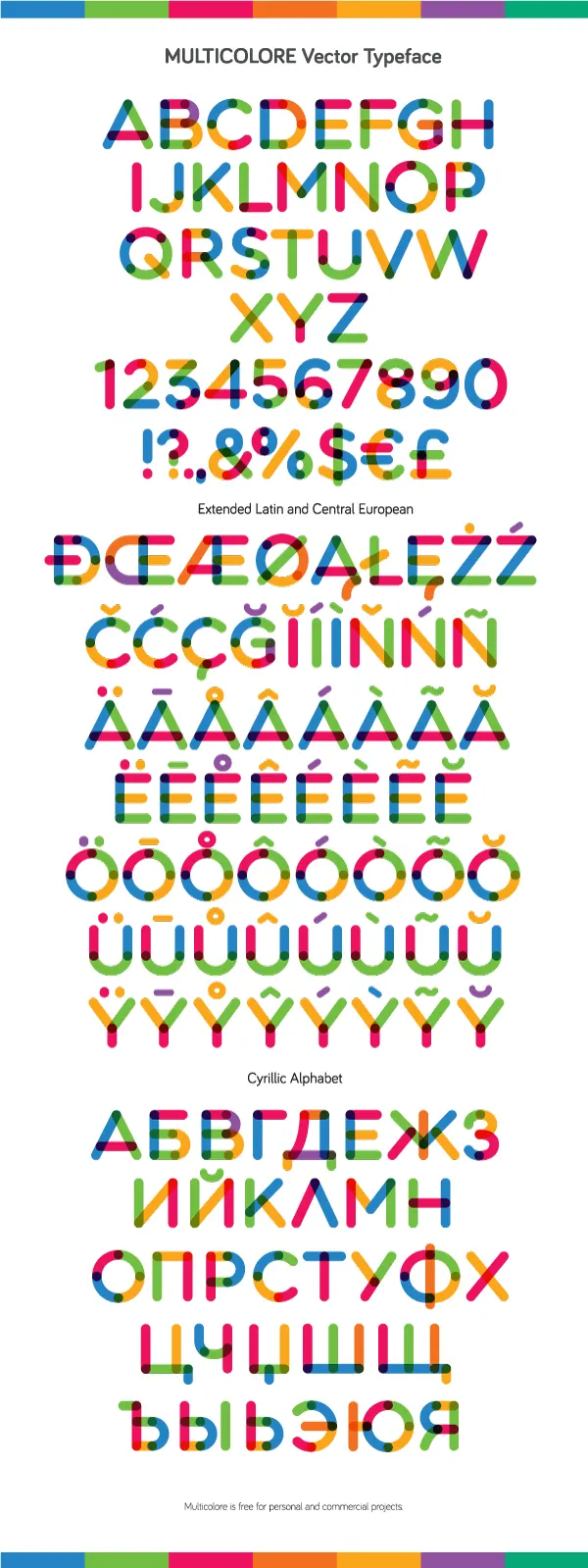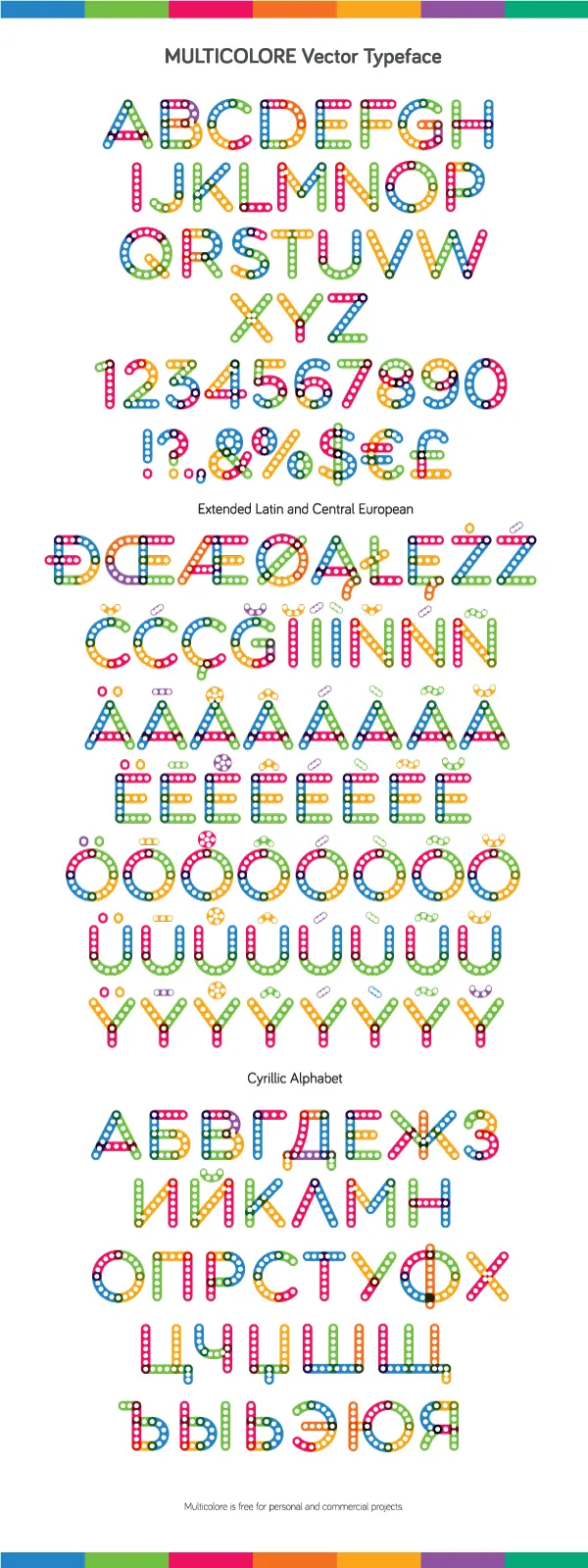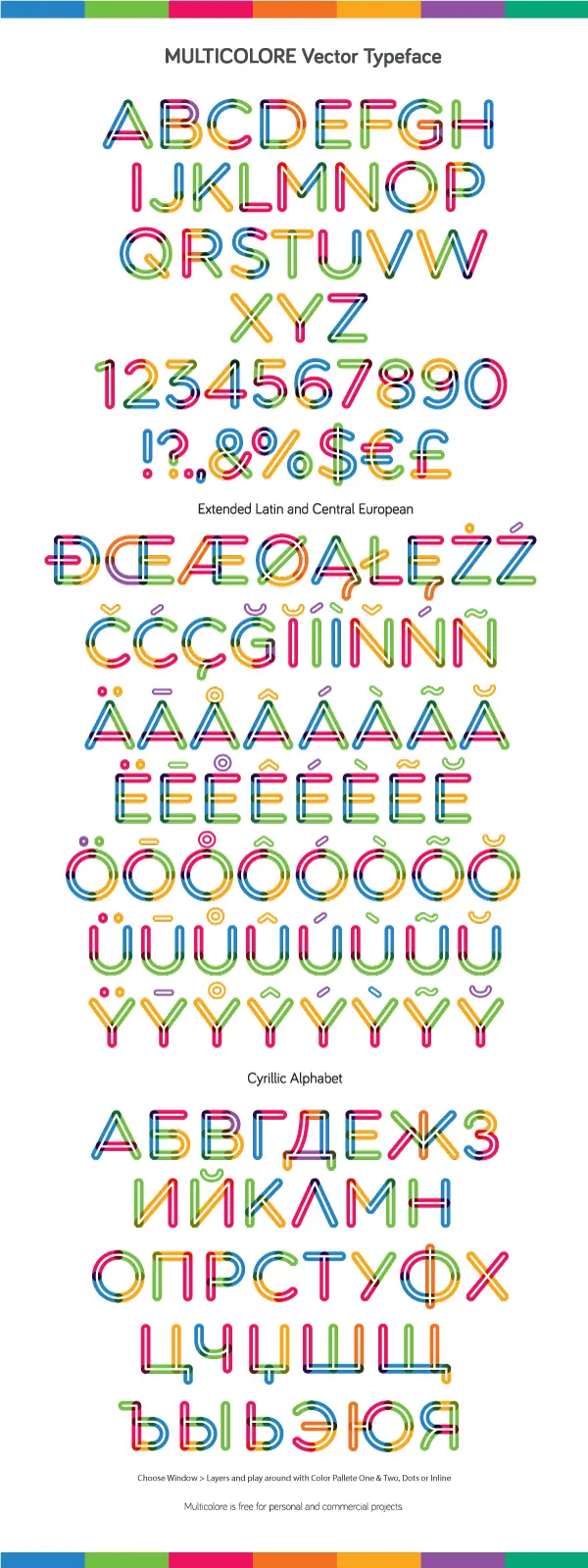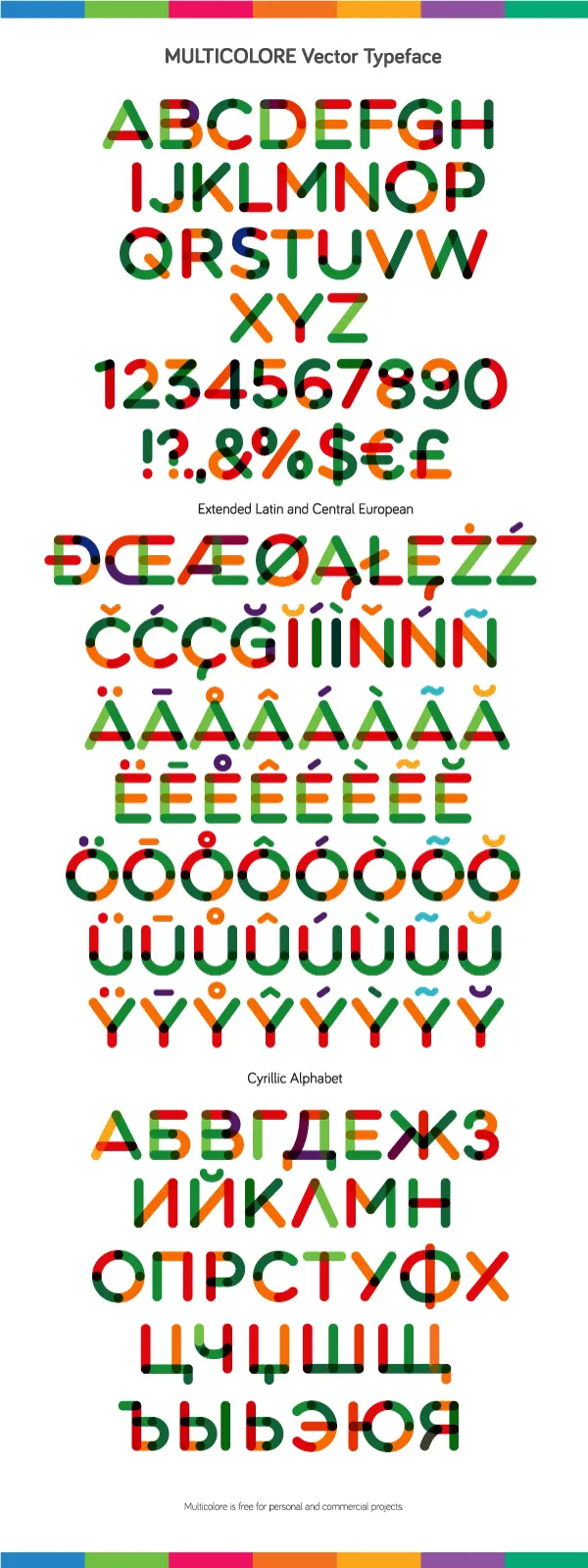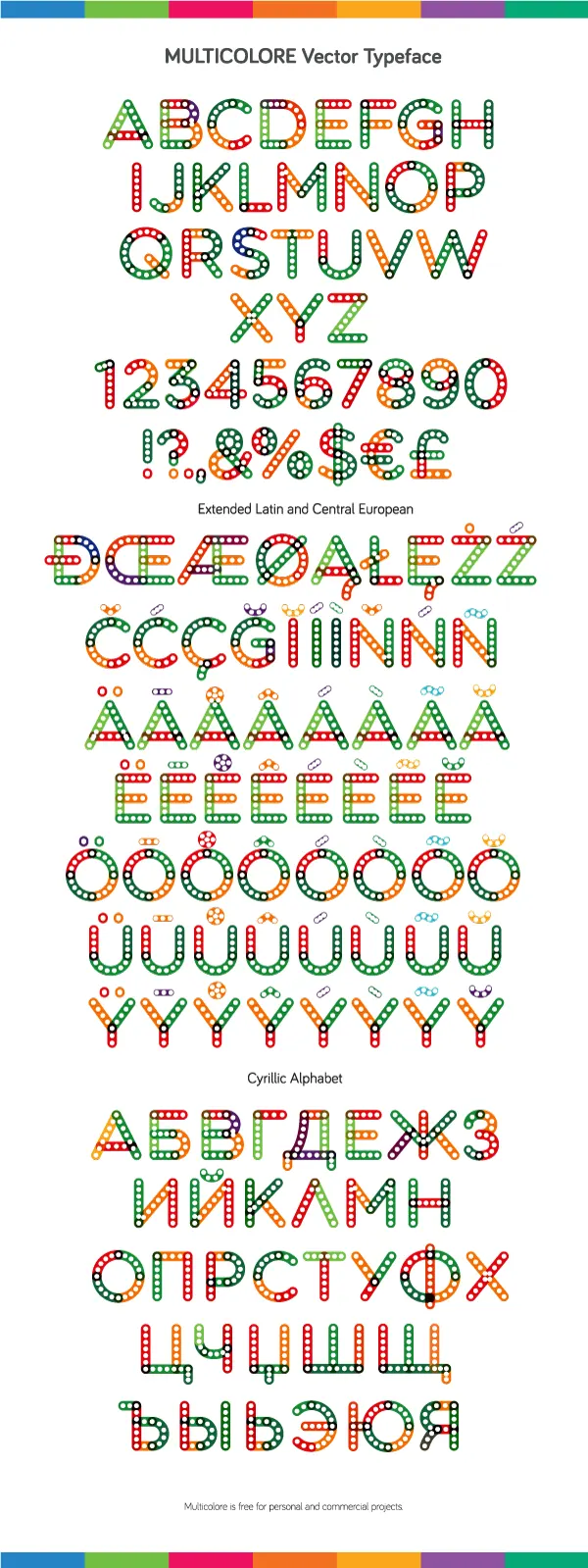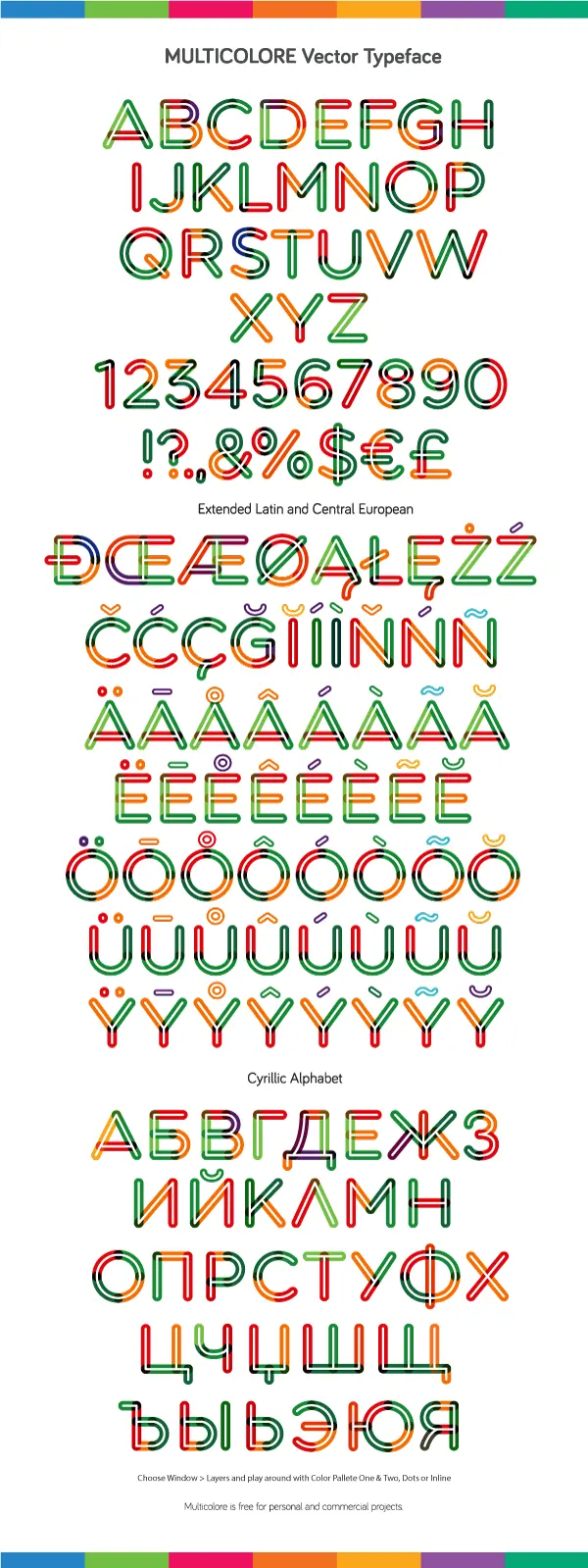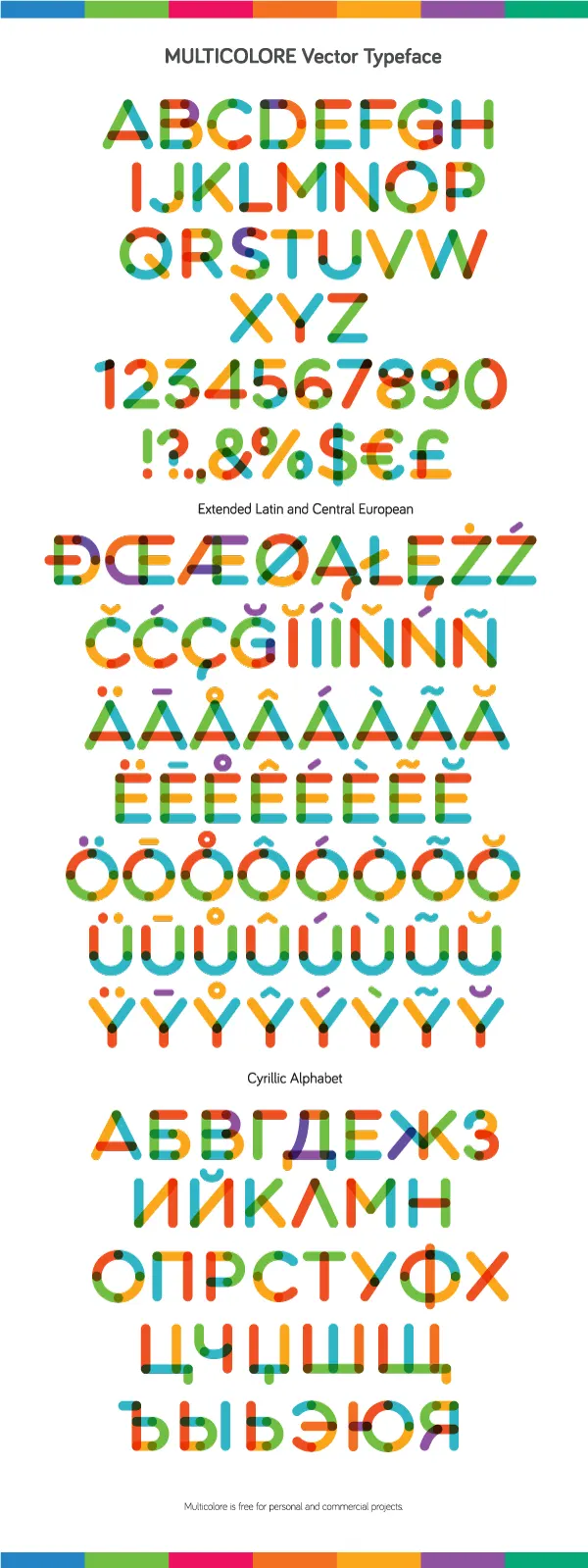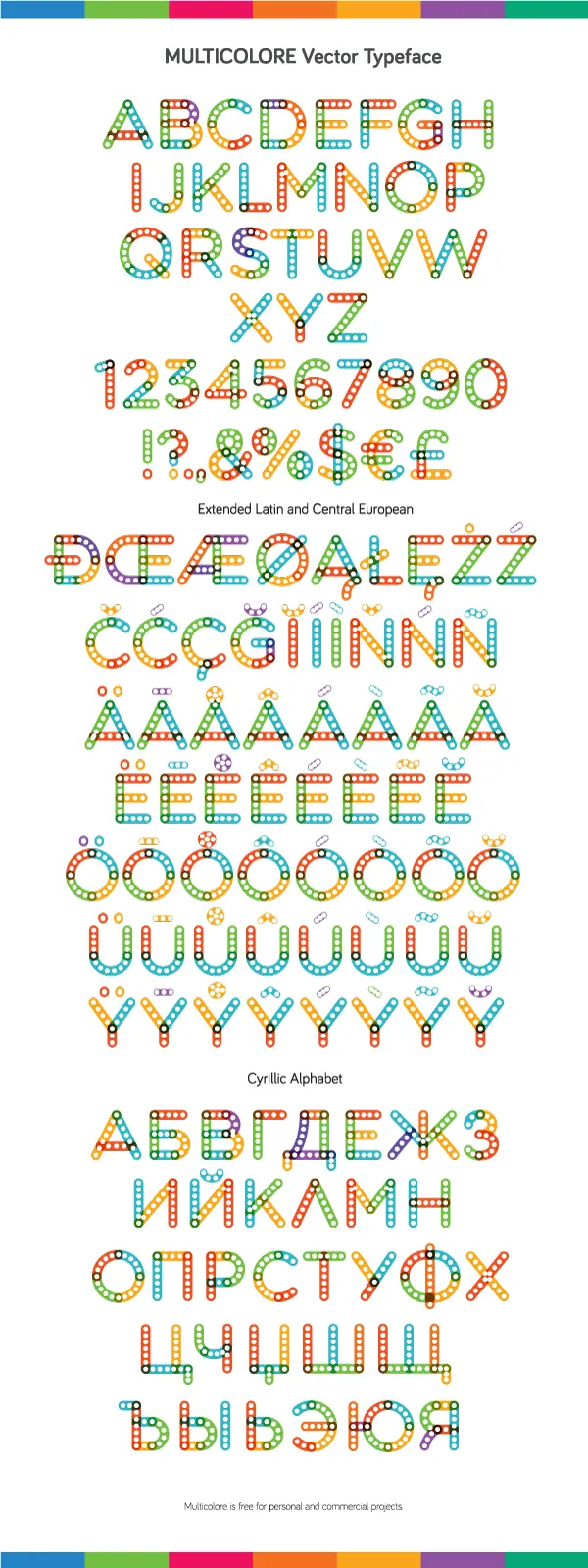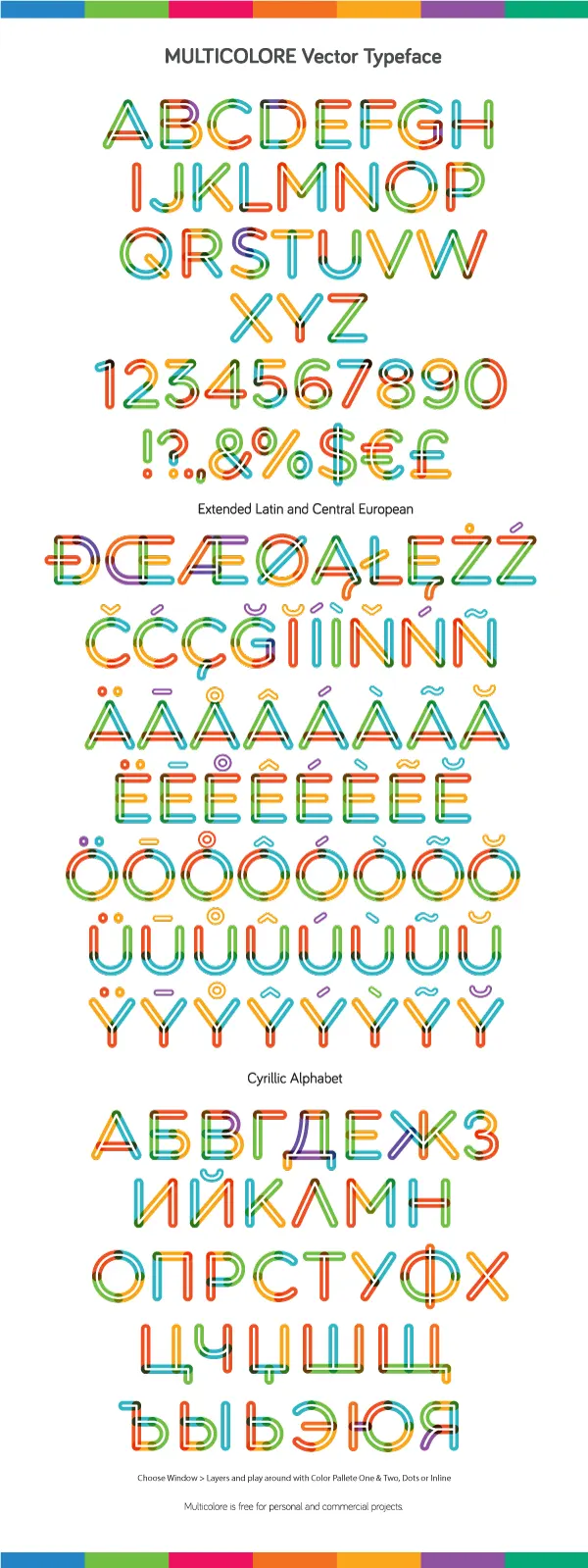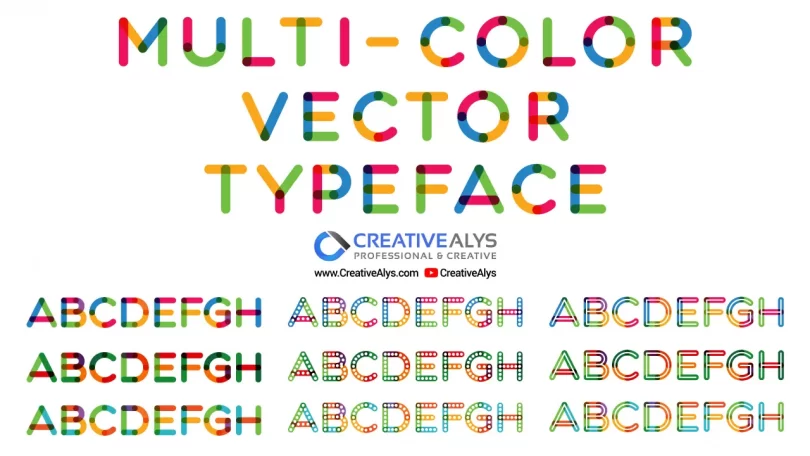
Introducing an exceptional multicolor vector typeface tailored to elevate your creative projects, such as illustrations, print templates, flyer designs, and brochures, with a modern and eye-catching design. Our package includes AI and EPS file formats for seamless integration into Adobe Illustrator. This versatile typeface offers various styles, including dotted and neon variations.
What sets this Multicolor Vector Font apart is its extensive language support, encompassing Extended Latin, Central European, and Cyrillic alphabets. The best part? It’s absolutely free for both personal and commercial use (attribution required). Don’t miss the chance to harness the creative potential of this MultiColor Font; grab it now and feel free to share it with your fellow designers.